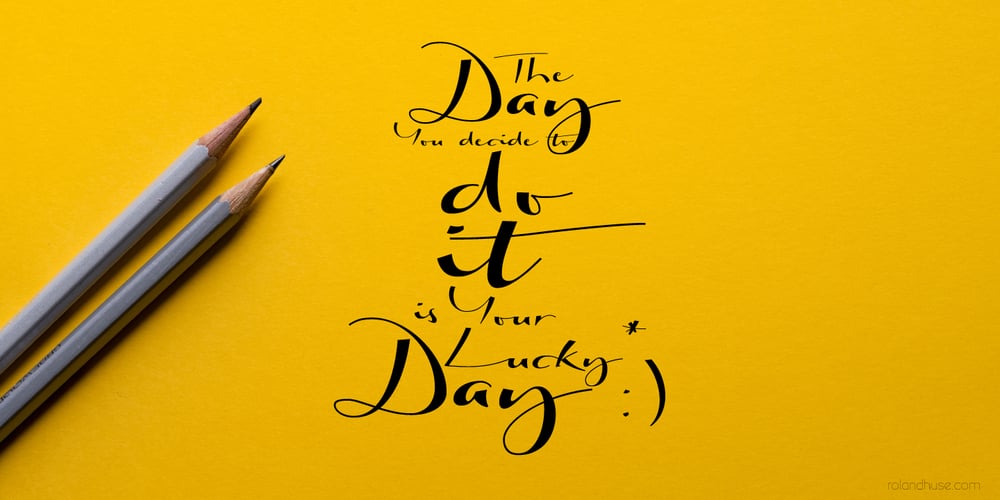
Biloxi Calligraphy Font Family was designed by Roland Hüse and published by Roland Hüse Design. Biloxi Calligraphy contains 1 styles and family package options. Biloxi Calligraphy is heavier weight version with calligraphic strokes of a handwritten font of mine called “Biloxi Script”. Casual handwritten style with a calligraphy feel, ideal for blog headers, menus, headlines and logotypes.